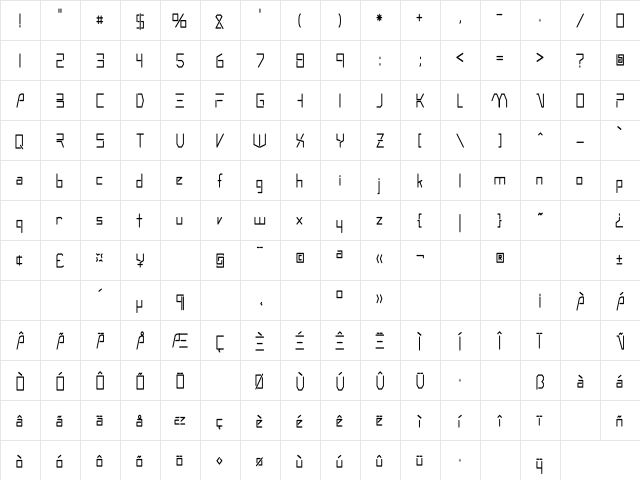
Rsandromed Cn Regular Font Preview
Rsandromed Cn Regular
Design Context for Rsandromed Cn Typeface
Rsandromed Cn is a composed and adaptable typeface that performs quietly and consistently across a wide range of design contexts.